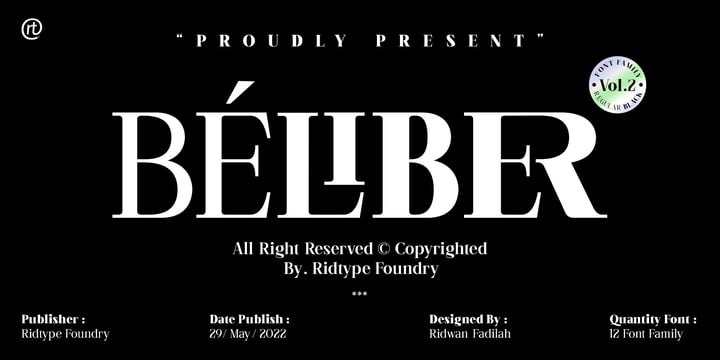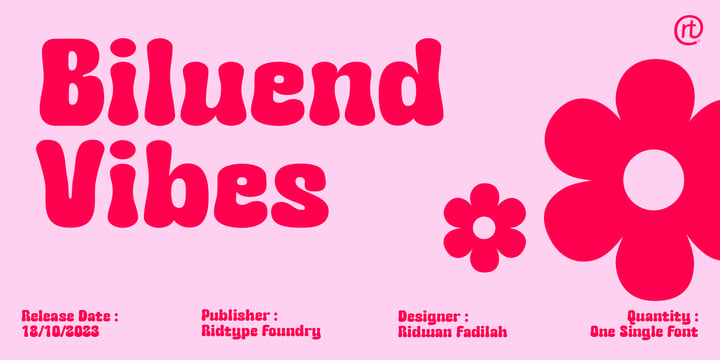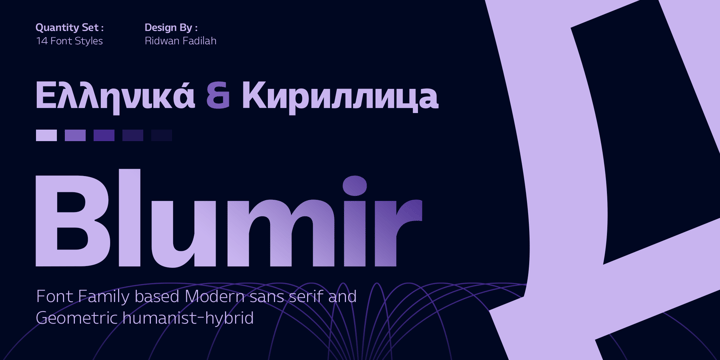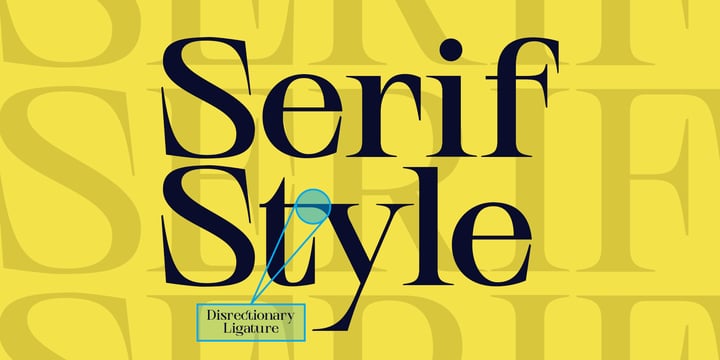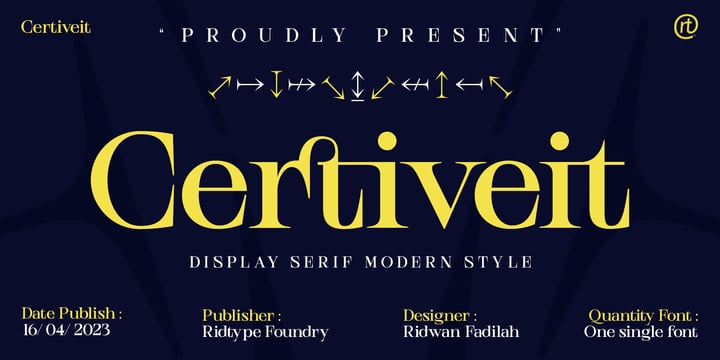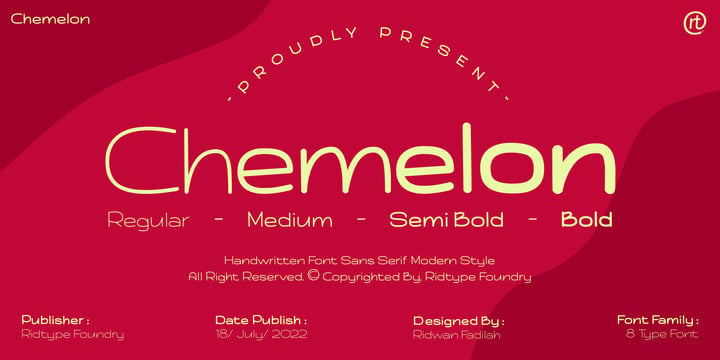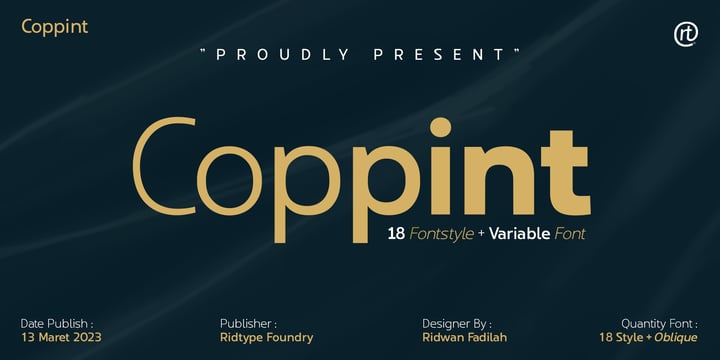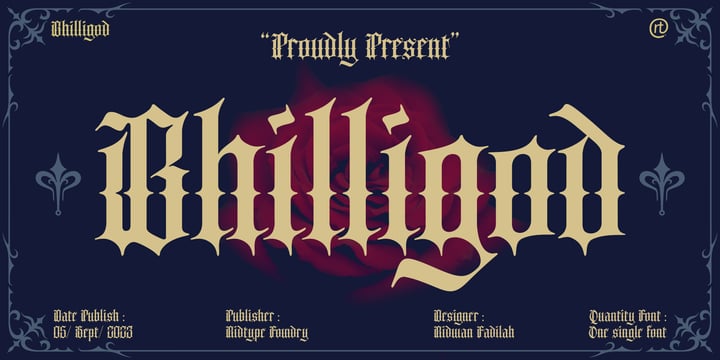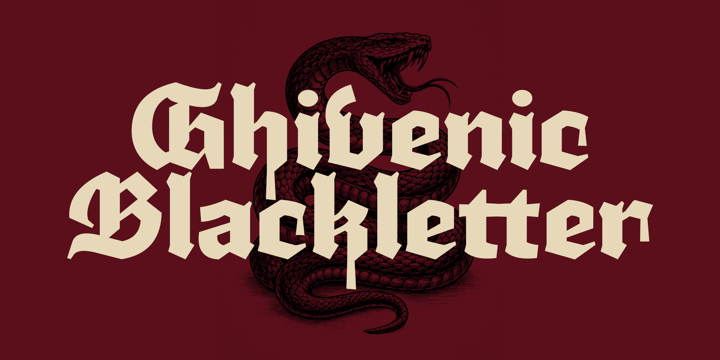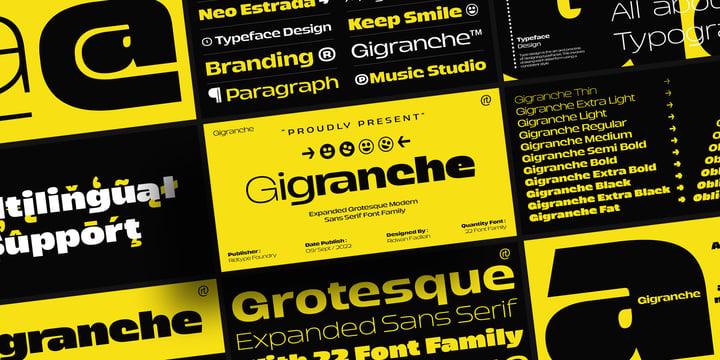
Ridtype [Ridwan Fadilah]
Bogor, Indonesia-based designer, b. 1997.
Typefaces from 2022: Guminert (a 12-style geometric sans with a tall x-height).
Later typefaces (past 2022): Ridtype Pro (a highly readable, modern sans-serif designed to act as a custom brand font), Gutriger (a neo-retro serif typeface), Biluend Vibes (a groovy display and retro font), Bhilligod (a distinct blackletter font), Coppint (a modern sans-serif), Beliber, Blumir (sans), Certiveit, Chemelon, Ghivenic, Gigranche (a fashion sans), Lovelope, Madiffure, Rulinover (Victorian), Sansceina.